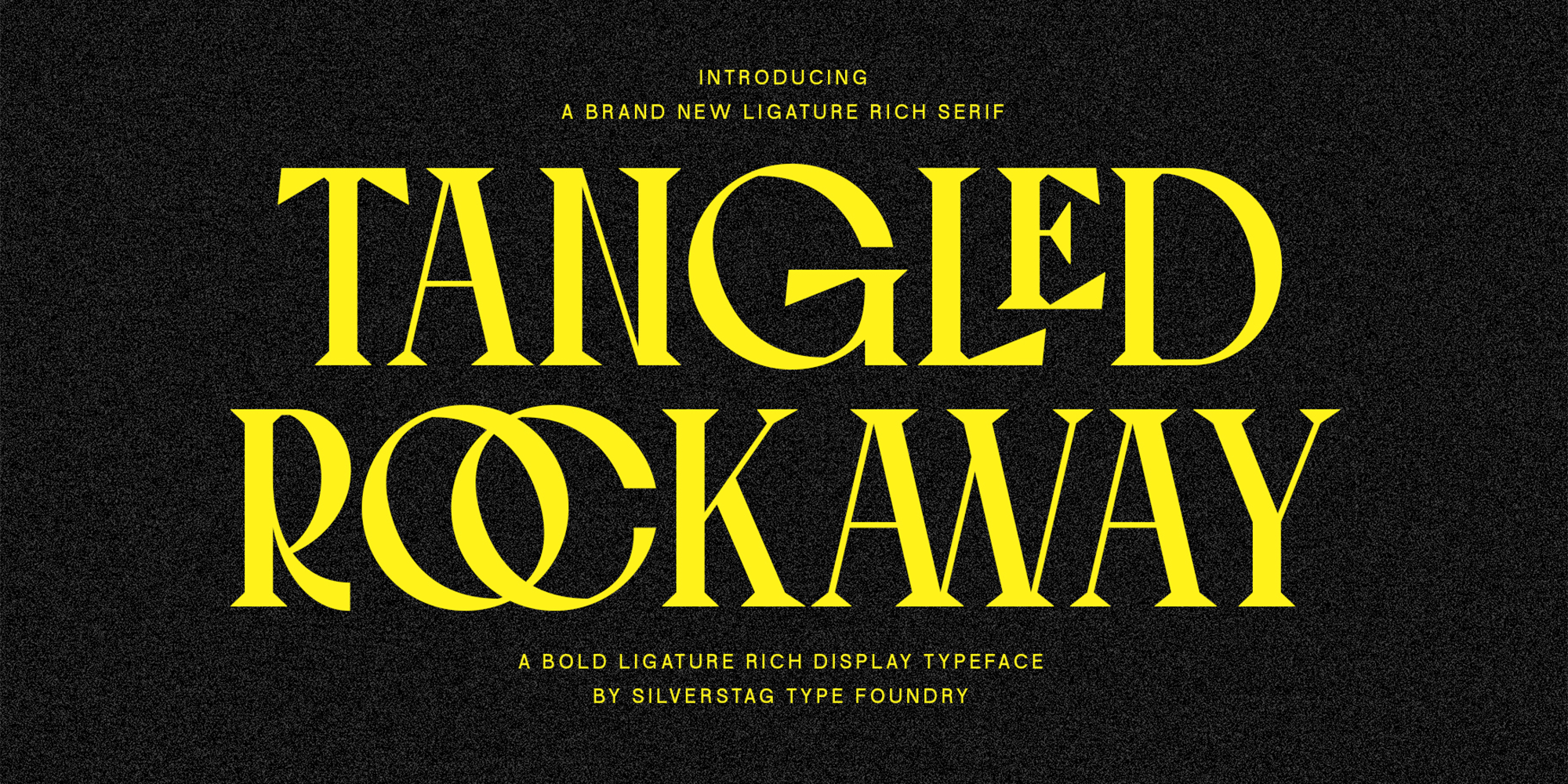
Tangled Rockaway Font is perfect for surf shop branding, beach resort marketing materials, coastal restaurant menus, summer festival posters, beachside bar signage, ocean adventure tour promotions, seaside boutique logos, nautical themed packaging, waterfront property advertising, and laid-back lifestyle brand communications.
What makes Tangled Rockaway Font so exciting is its incredible ability to capture the wild, untamed spirit of crashing waves and windswept beaches through intricate letterforms that seem twisted by ocean breezes and sculpted by endless tides. This font embodies the raw energy and natural beauty of coastal living, featuring dynamic characters that appear weathered by salt air and shaped by the constant motion of the sea. The flowing letter shapes create an atmosphere of freedom and adventure, making every word feel like it's dancing with the rhythm of ocean waves and beach grass swaying in the wind.
The Tangled Rockaway Font family includes Light, Regular, Bold, Distressed, and Wave variations, along with special nautical symbols and decorative elements. Each style maintains the font's distinctive coastal character while offering flexibility for different beachside applications, from subtle seaside text to bold shoreline headlines that capture the power of the ocean.
This captivating typeface brings authentic coastal vibes to contemporary design projects. The Tangled Rockaway Font Free Download provides designers with an invaluable tool to create memorable brand identities that communicate relaxation, adventure, and connection to the sea. Whether you're developing beachfront business branding, designing summer event materials, or creating coastal lifestyle communications, this font delivers unmatched authenticity and oceanic energy.
The expertly crafted letterforms in Tangled Rockaway Font feature intertwining curves, organic irregularities, and flowing connections that mirror the complex patterns created by waves, driftwood, and tangled seaweed along the shoreline. Each character has been carefully designed to maintain excellent readability while expressing the untamed beauty of coastal environments. The font's distinctive personality makes it ideal for applications requiring genuine beach culture authenticity and natural freedom.
Coastal business professionals value how Tangled Rockaway Font instantly establishes beachside credibility and relaxed sophistication without appearing artificial or overly commercialized. The comprehensive character set includes maritime symbols, wave patterns, and international language support, ensuring global compatibility while maintaining its distinctive coastal identity. This makes it an essential resource for surf companies, beach resorts, coastal restaurants, and any organization seeking typography that embodies the endless freedom and natural beauty of oceanside living.